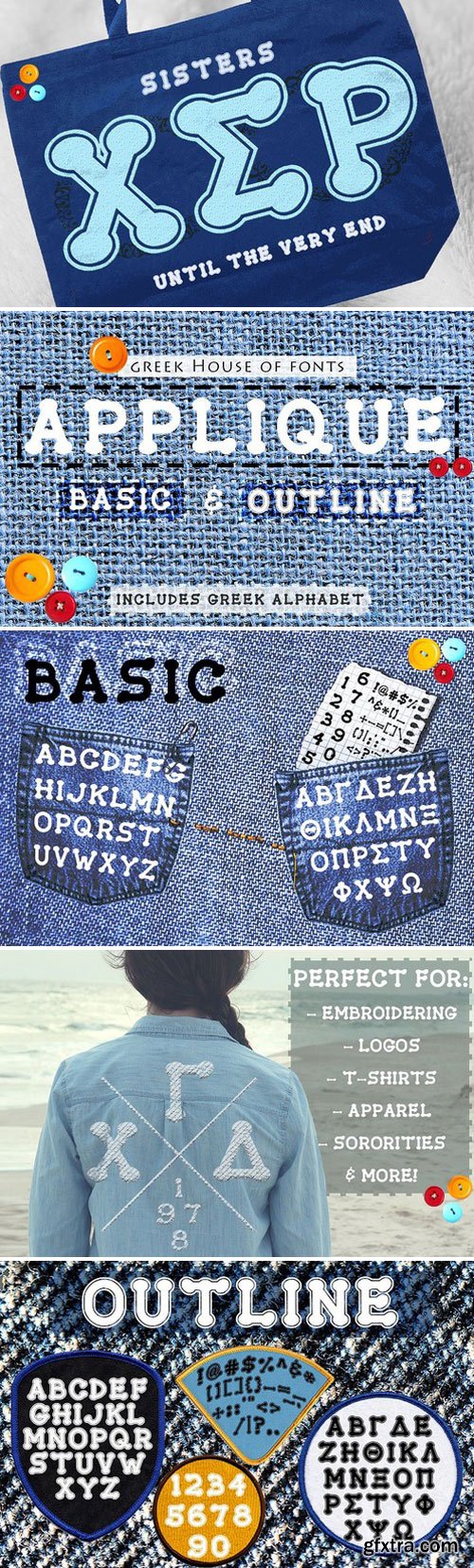
This applique Greek font set includes both solid and outline applique style lettering in .TTF format. These two fonts are perfect for designing T-shirts and other collegiate graphic design needs. This font is generally made for sororities.